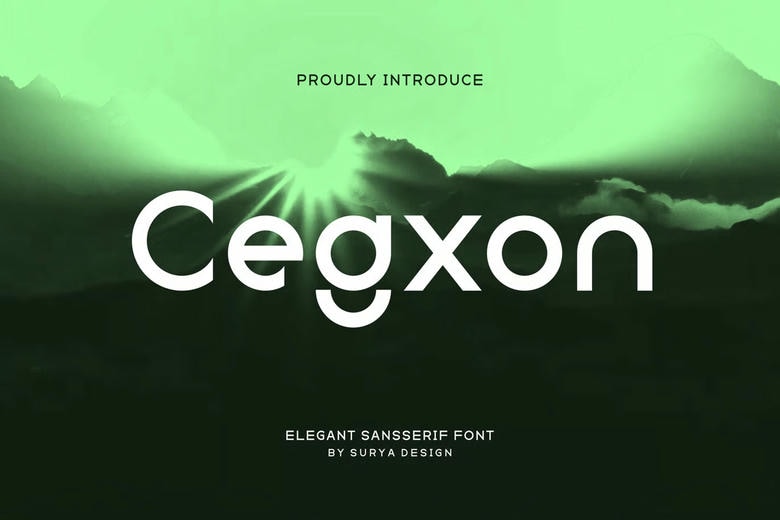
Cegxon Font
Cegxon Font– Modern Font is a bold and authentic display font. The font is suitable for any branding project like logo, t-shirt printing, esport, and many more. outstanding in a wide range of contexts.
Cegxon Sans Serif Font